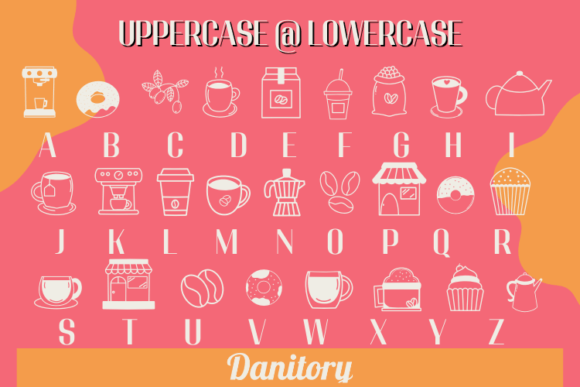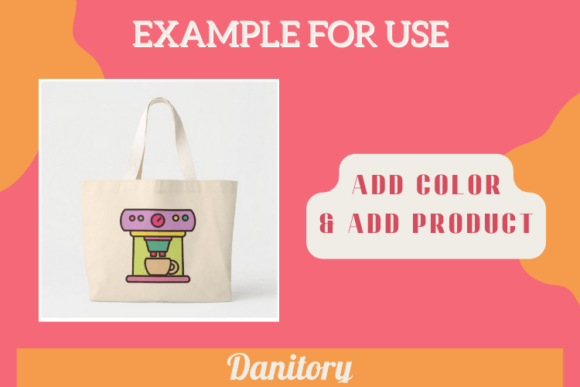
Introduction to Cafe Cafe Font
Cafe Cafe is a cute and lovely dingbats font.
It has fun coffee elements that convey fun and realism and is a perfect choice as you can use this font for any project that needs a fun and caffeinated touch .